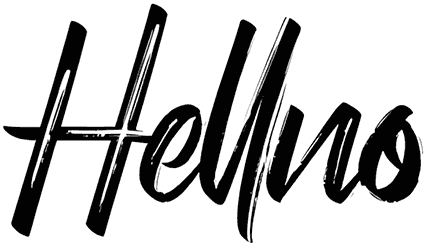
Hellno Font
Hellno is a patterned brush font that adds a natural hand-drawn feel wherever it’s used! This specific font is very stylish, it allows you to create stunning cursive-style typography. It includes bold pen brush characters that look modern.
All these amazing features make Hellno the most useful font for branding, clothing, adverts, flyers, invitations, and wherever you wish to add an artistic touch! Just have in mind it doesn’t contain a set of numbers in its letterforms.